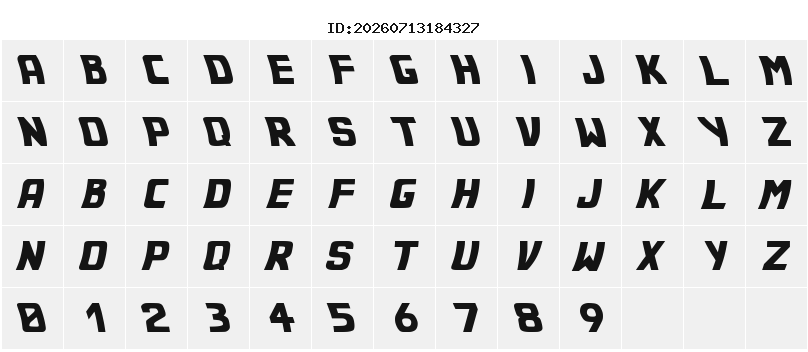
Back to the future 2002 Preview
• Font Name: Back to the future 2002
• Full Font Name: Back to the future 2002
About Back to the future 2002.ttf
Back to the future 2002.ttf is a modern, elegant sans-serif font designed for ultimate readability and visual harmony. Perfect for branding, headlines, web design, and print materials.